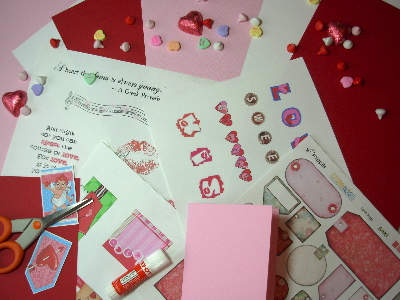
JILLUSTRATION'S
MOO'D FOR LOVE BUNDLE |
Love
is well worth celebrating and with Valentine’s Day
just around the corner, we want to invite you to our Valentine’s
Day celebration. We’re getting things started with
not just one, but five special Valentine wishes, just for
you. Each of the five quotes on our exclusive Lettering
Delights Valentine Quote is uniquely styled to reflect
the heartfelt message it shares. This quote sheet is our
Remember all the fun you had
as a kid making homemade Valentines? With a little help
from Lettering Delights, it’s easy to make sure your
own kids, grandkids, students, nieces and nephews can have
the same fun you did.
Lettering Delights Valentine alphabets and Journaling
Delights, Tags and Paper
Packs give you everything you
need to let their creativity run wild. From the Creative
Delights Companion, print sheets of Journaling Delights
adornments, corners and even text boxes. Create more variety
by printing additional sheets of sweet expressions in a
variety of Valentine alphabets. Printed
Tag sheets provide
fun shapes and colors for handwritten messages. Print some
Valentine Paper
Packs to give maximum variety. Add in some
blank cardstock, scissors and glue stick for an afternoon
of home made fun. (Don’t forget to include the Free
Valentine quote sheet in your selections too.)
Jillustration’s Moo’d For Love Bundle |
Married just last month,
Jill’s status as a newlywed may have given
her a little extra inspiration for the Moo’d
For Love Bundle. |
In true
Jillustration style, these three vibrant and quirky designs
are each a playful expression of love. Congratulations,
Jill!
Vintage Valentine Alphabets |
Re-released in transparent
format, these six Vintage
Valentine alphabets will
add a touch of timeless style to your Valentine wishes